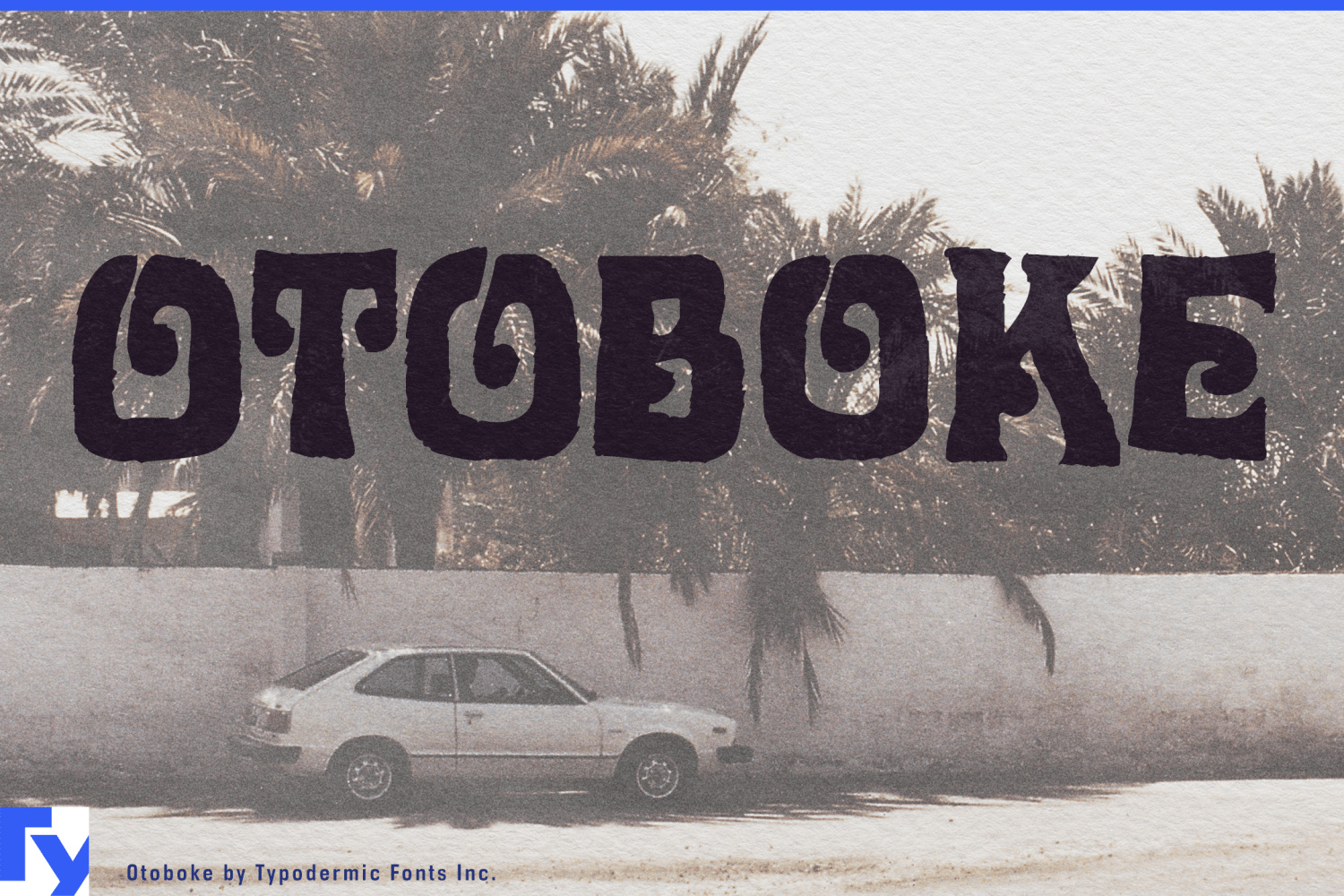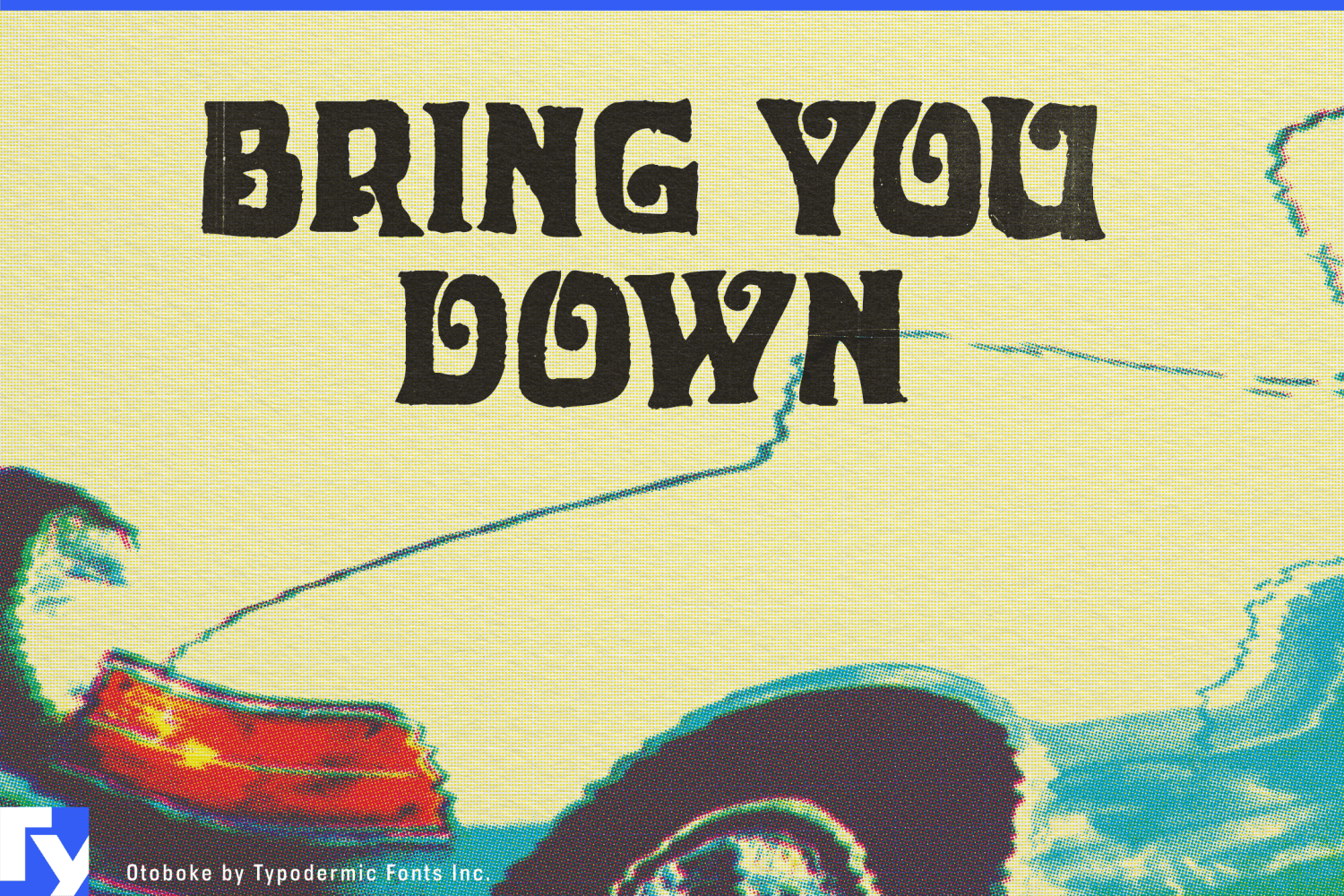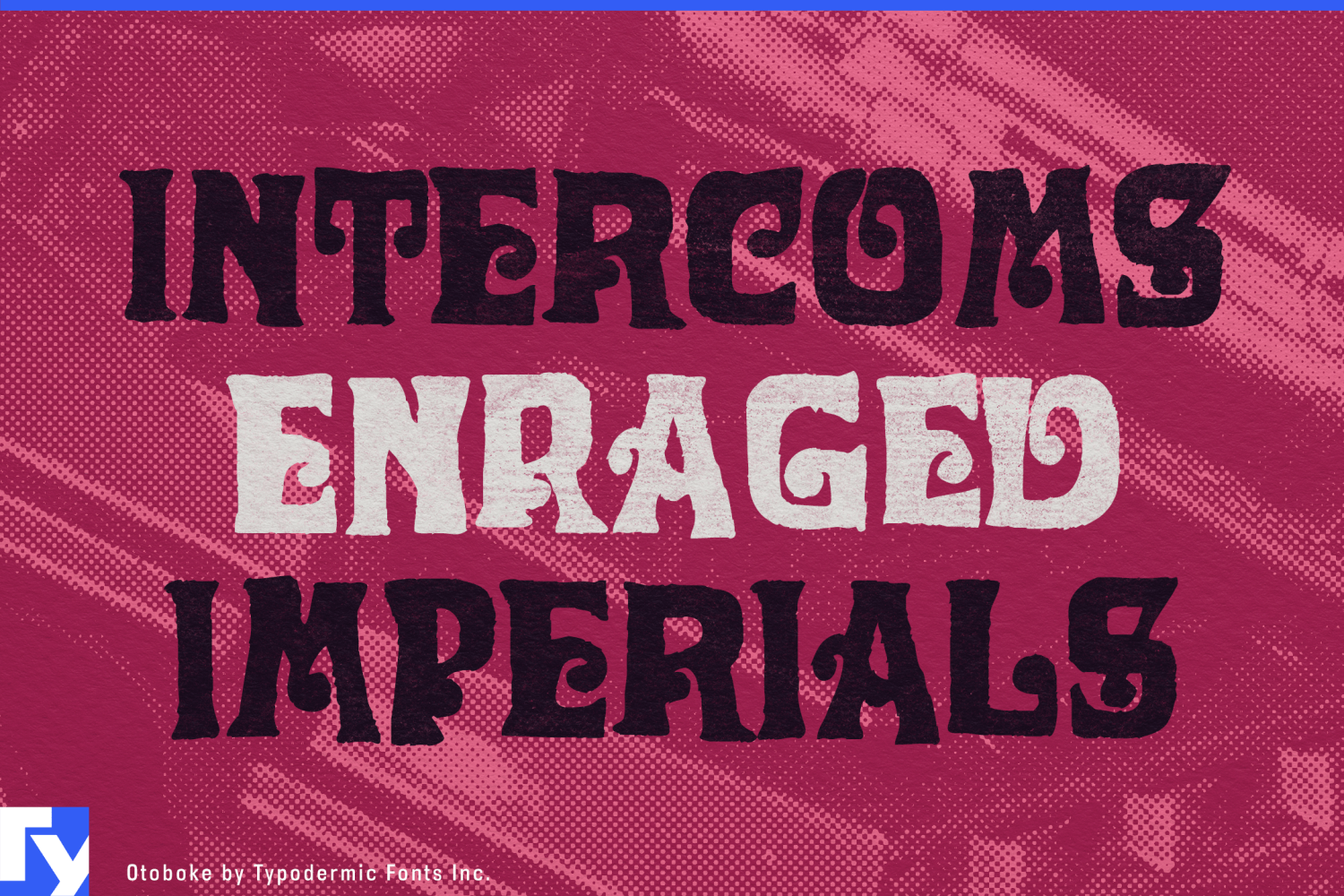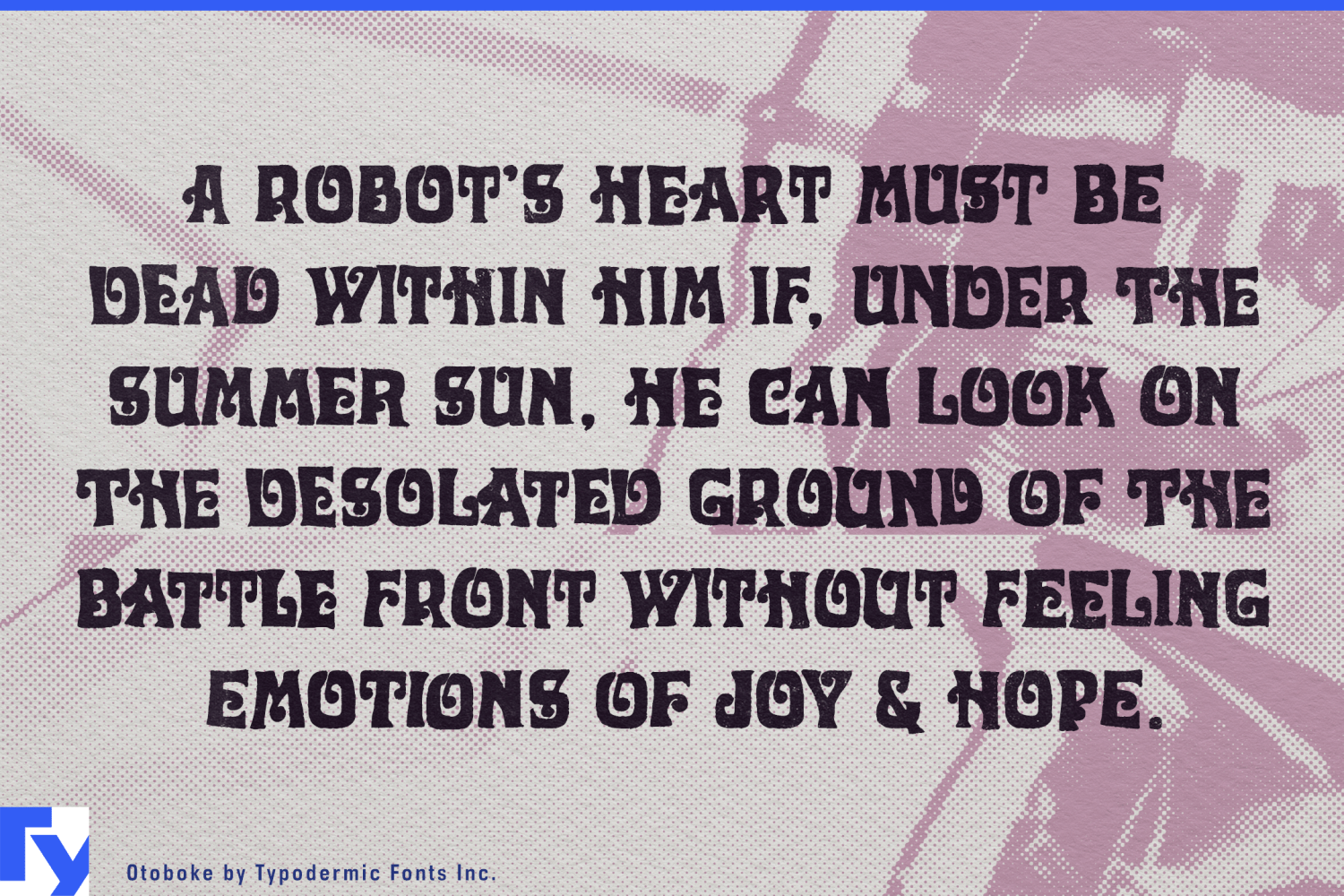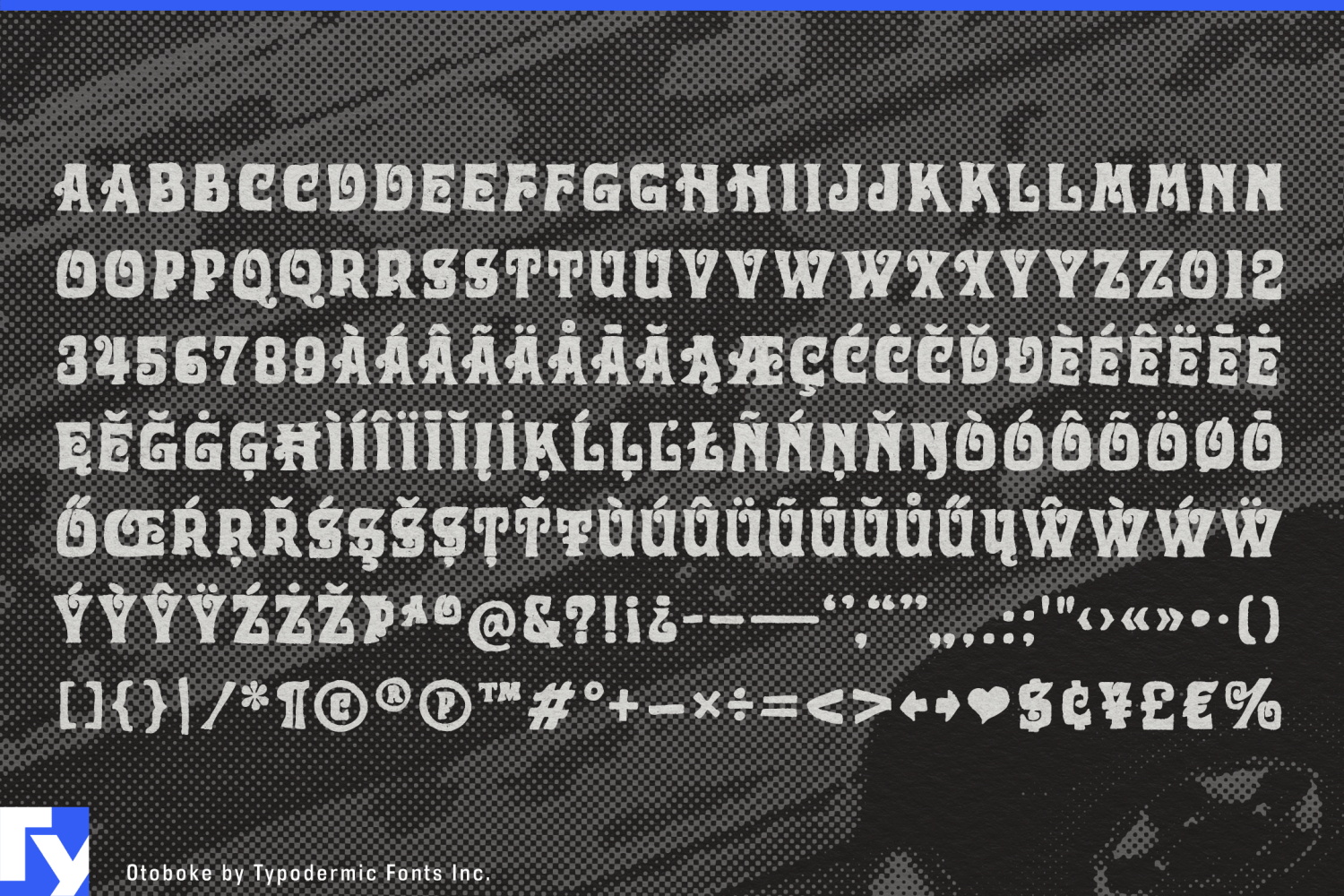
Otoboke
Its all-caps forms are swollen, lopsided and deliberately unstable, with irregular printed edges and alternate letterforms that keep repeated characters from falling into obvious digital repetition. That makes it especially useful for ranges built around many names, flavors, characters or releases that should feel related without looking mechanically identical.
Confectionery and personality-driven snacks are a natural fit. Sour gummies, chewy candy, novelty chocolate, spicy chips and limited-edition flavor ranges often need dozens of short product names under one recognizable identity. Otoboke gives those names enough variation to feel individually drawn while maintaining a consistent visual system across wrappers, bags, boxes and point-of-sale graphics.
Collectible toys and character brands benefit from the same approach. Blind-box creatures, weird-cute plush, vinyl monsters, capsule toys and expandable character series need lettering for line names, individual characters, rarity tiers and successive releases. Otoboke can give each name a little visual mutation while a quieter companion handles warnings, series numbers and product information.
Its irregular construction also suits animated comedy, monster stories, absurdist games and family tabletop titles where the cast or vocabulary is intentionally strange. Series titles, character names, expansion names and merchandise can share one unruly lettering language without every application becoming a separate custom-lettering job.
Otoboke’s warped mid-century ancestry gives it a trace of psychedelic display type, making it useful for blacklight mini-golf, retro arcades, immersive funhouses and other entertainment spaces that can support visual excess. It also works for kidult products and revived character properties aiming for peculiar toy-aisle nostalgia rather than strict period authenticity.
Otoboke is not built for neutral information or long passages. Its strength is repetition without sameness: a display system for many names, characters and flavors that belong together without ever looking completely identical.